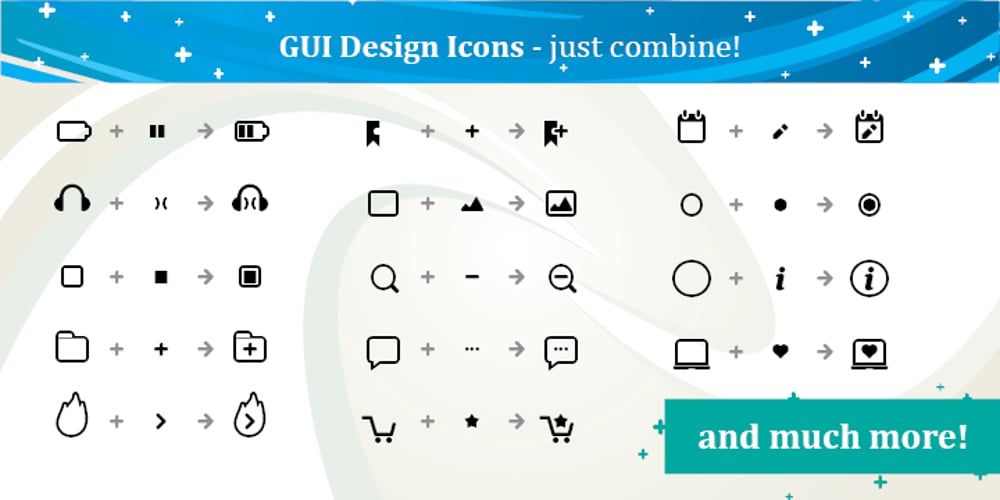
GUI Design Icons Font Family was designed by Vaclav Krejci and published by upirTYPO. GUI Design Icons contains 1 styles and family package options. GUI Design Icons is pack of about 200 icons for every possible user interface (GUI). What makes this font special is combinations. There are background and foreground objects which you can combine any way you like. Imagine you have an icon of shopping cart. By just adding another symbol, you can make an icon for adding that item to shopping cart, removing the item, showing favorites or any other possible combination. See image example for some fresh ideas!